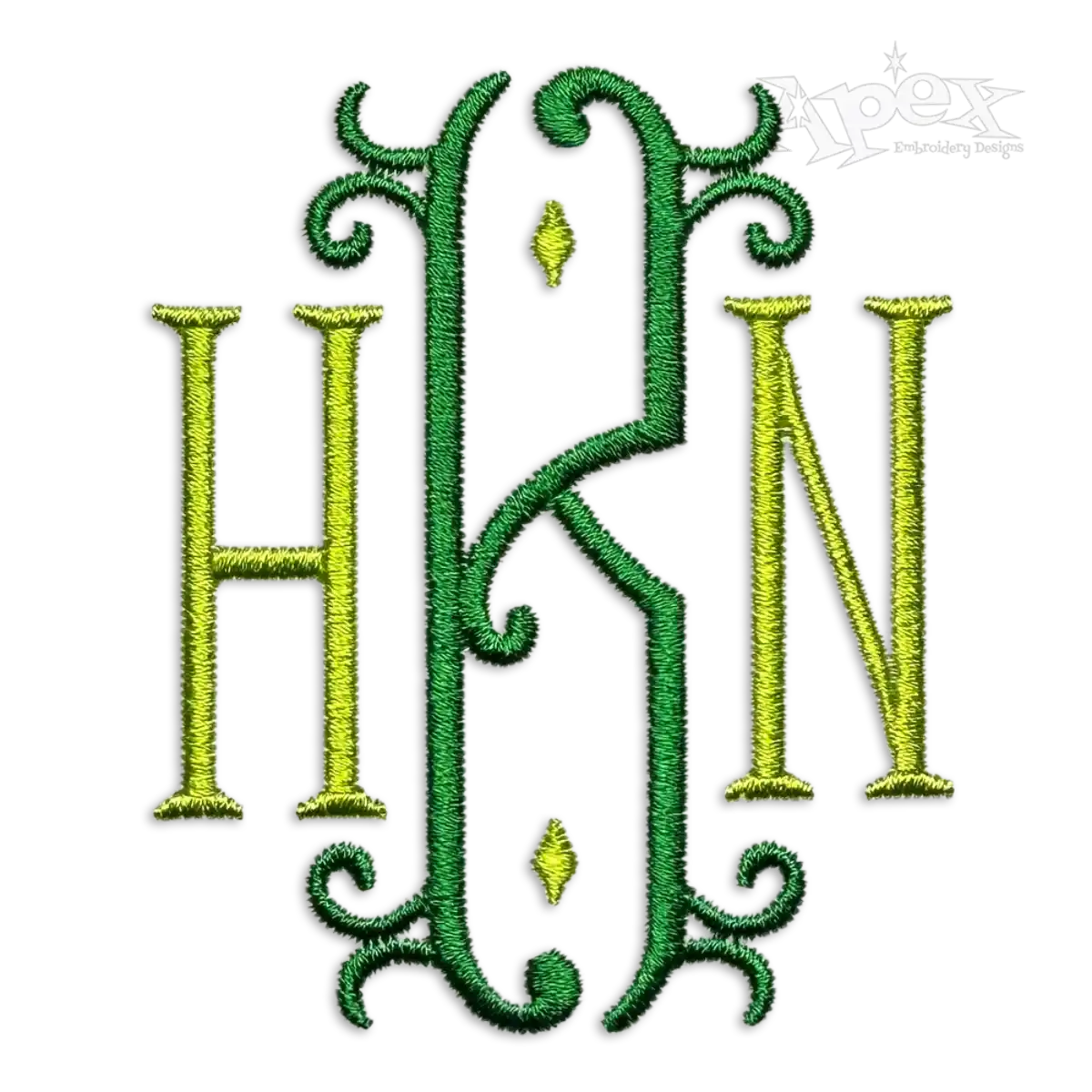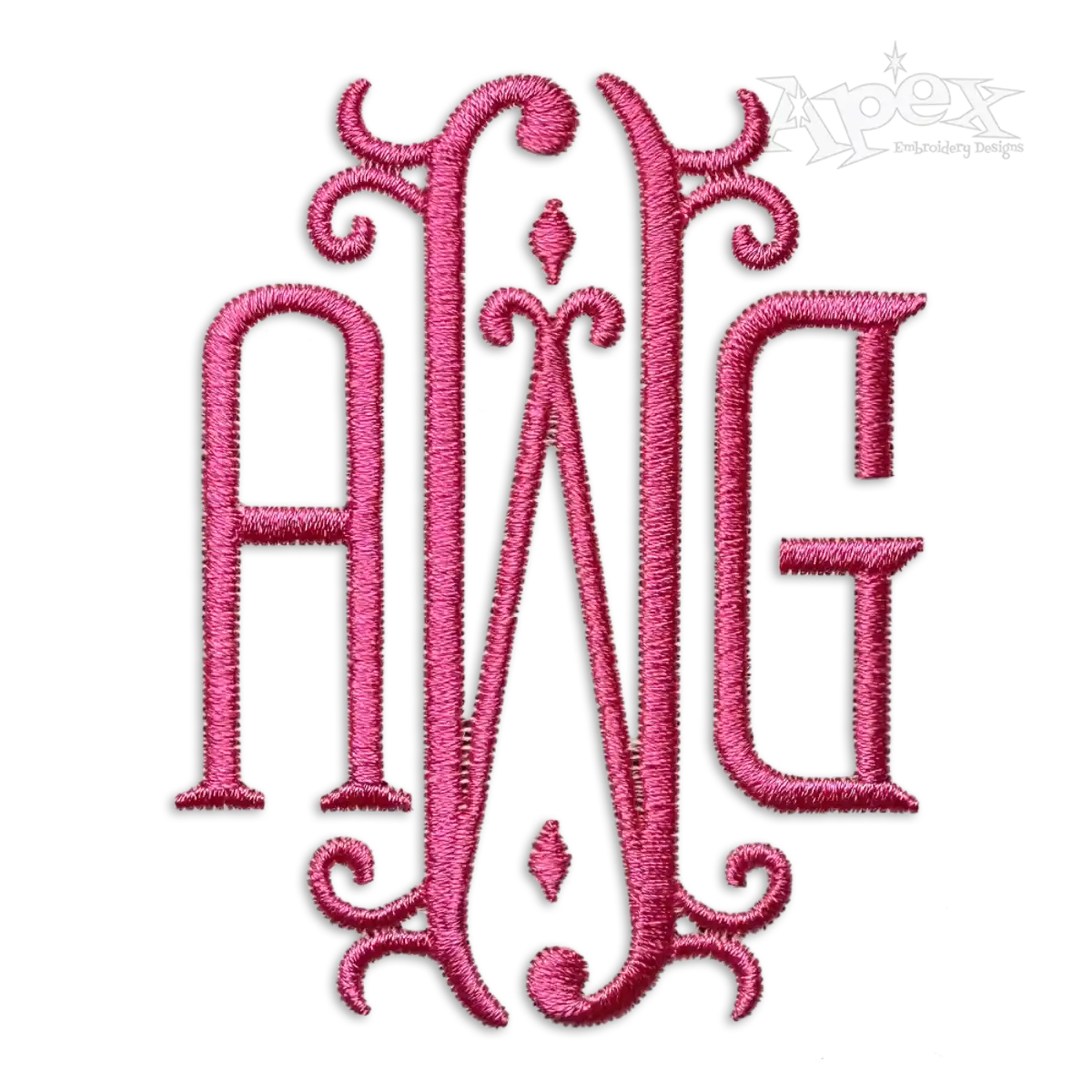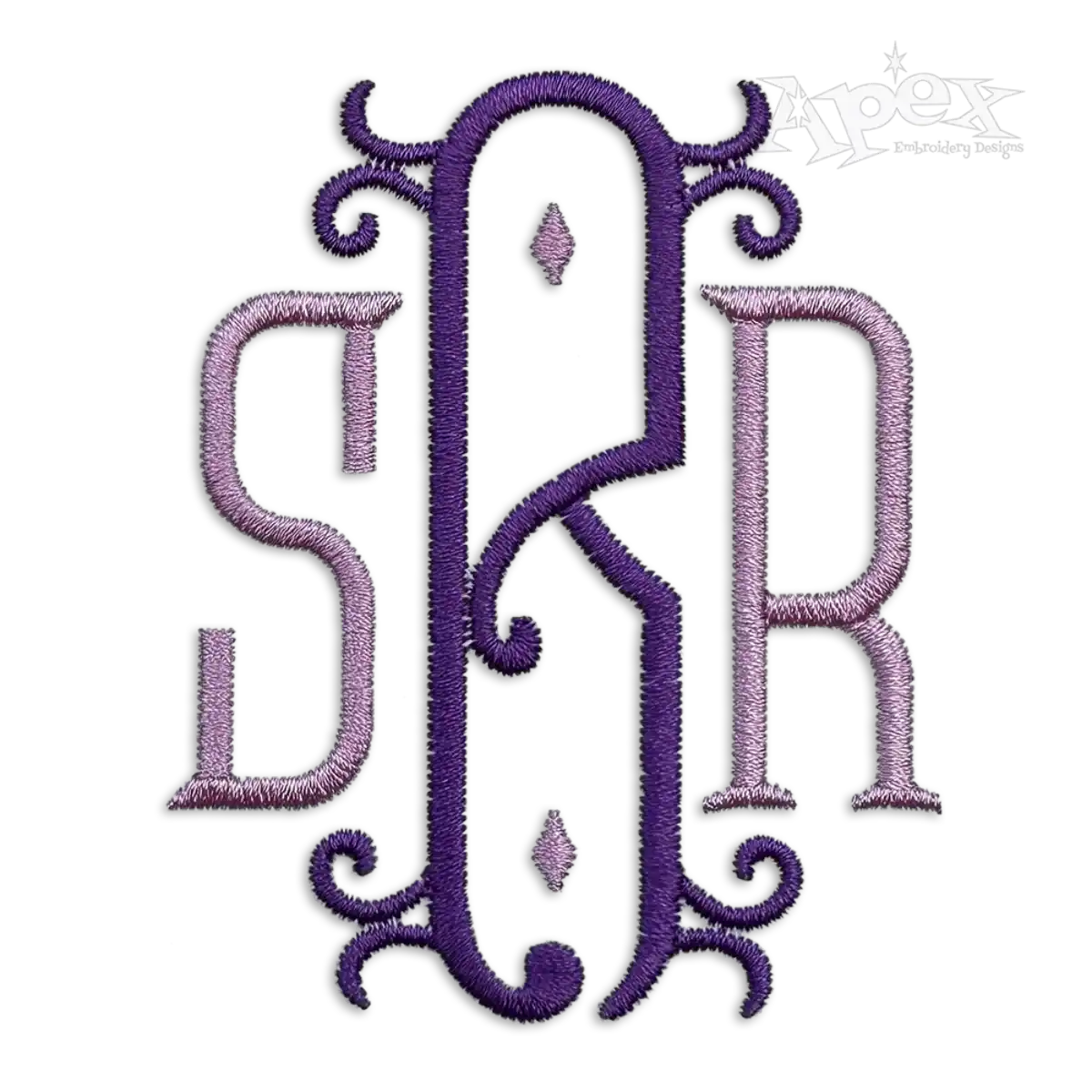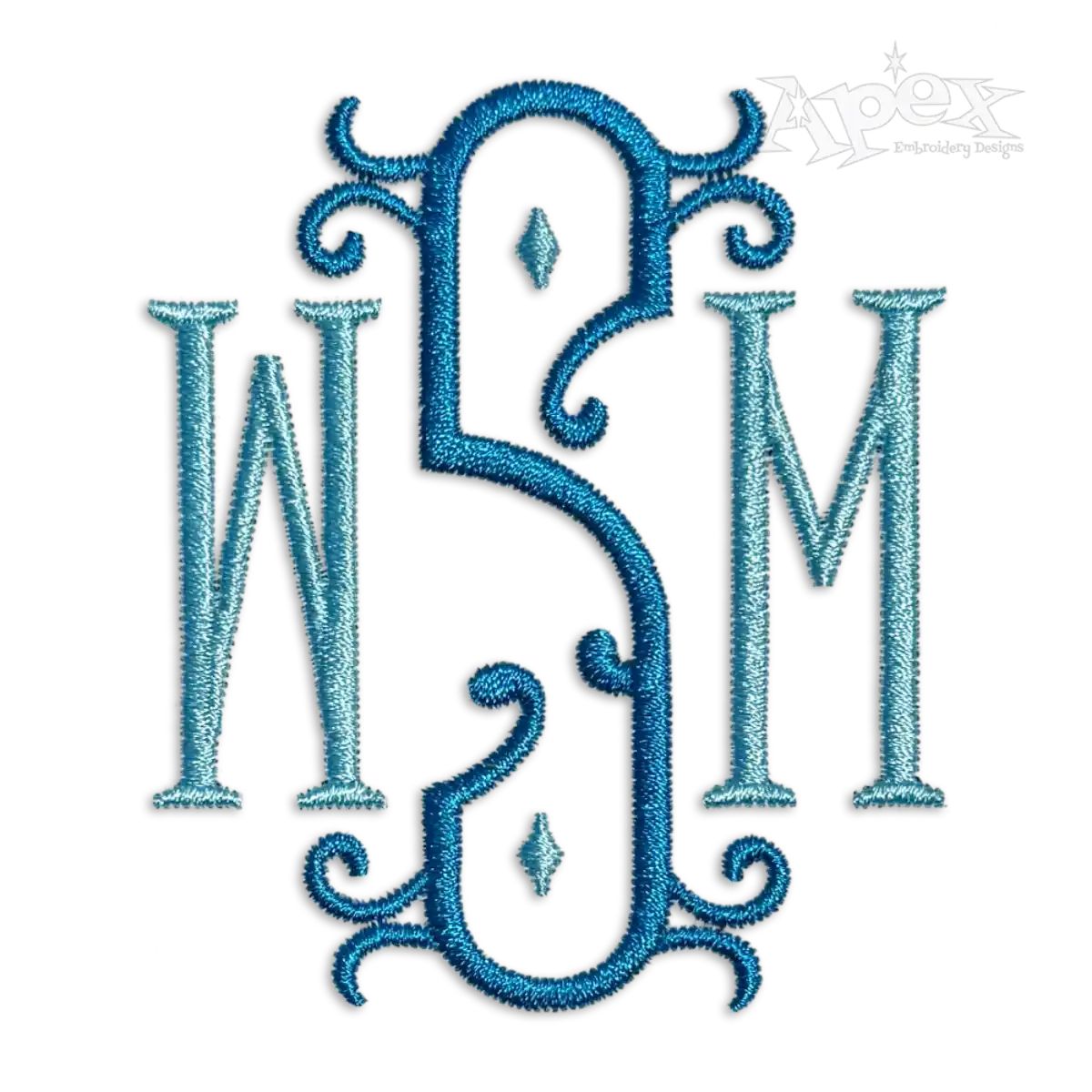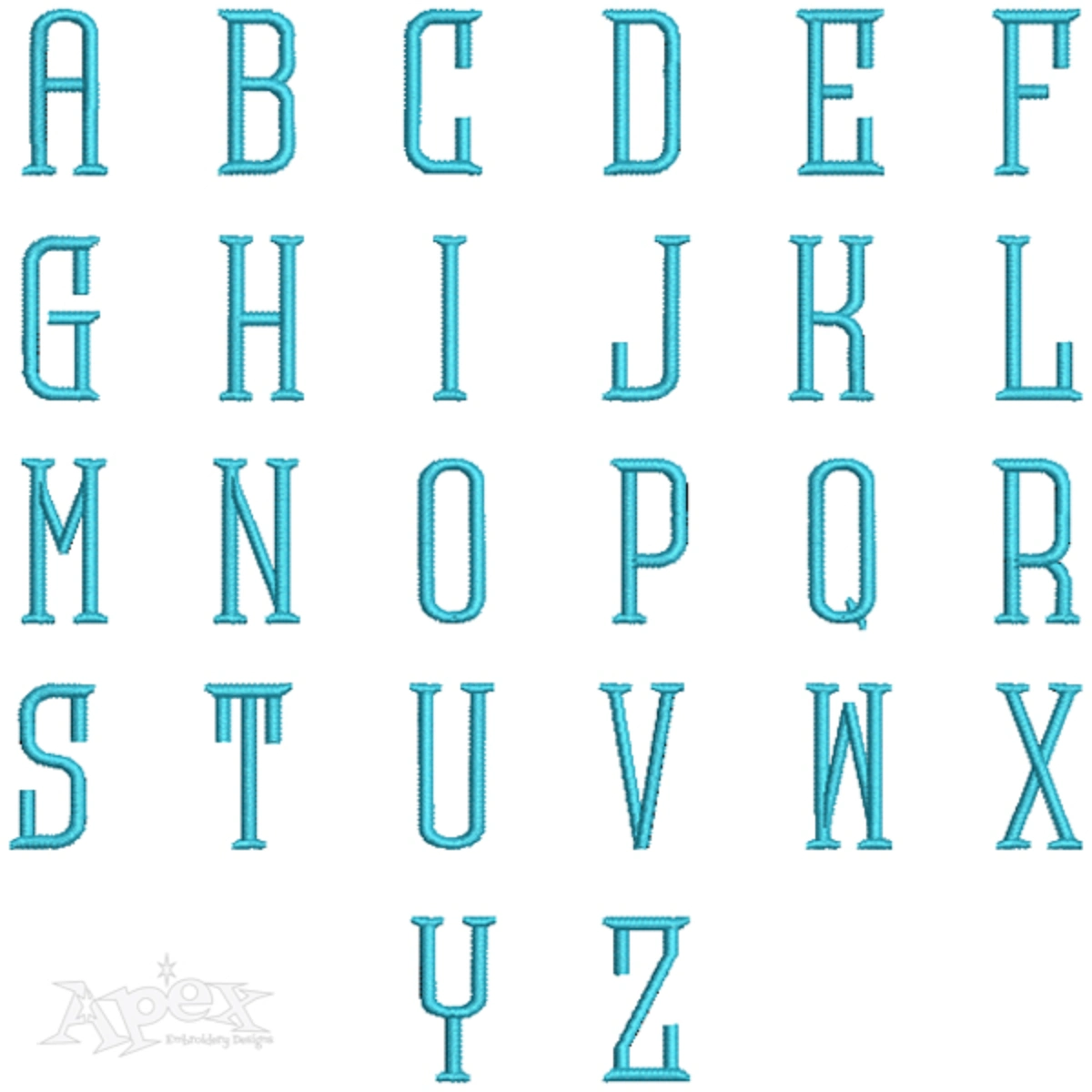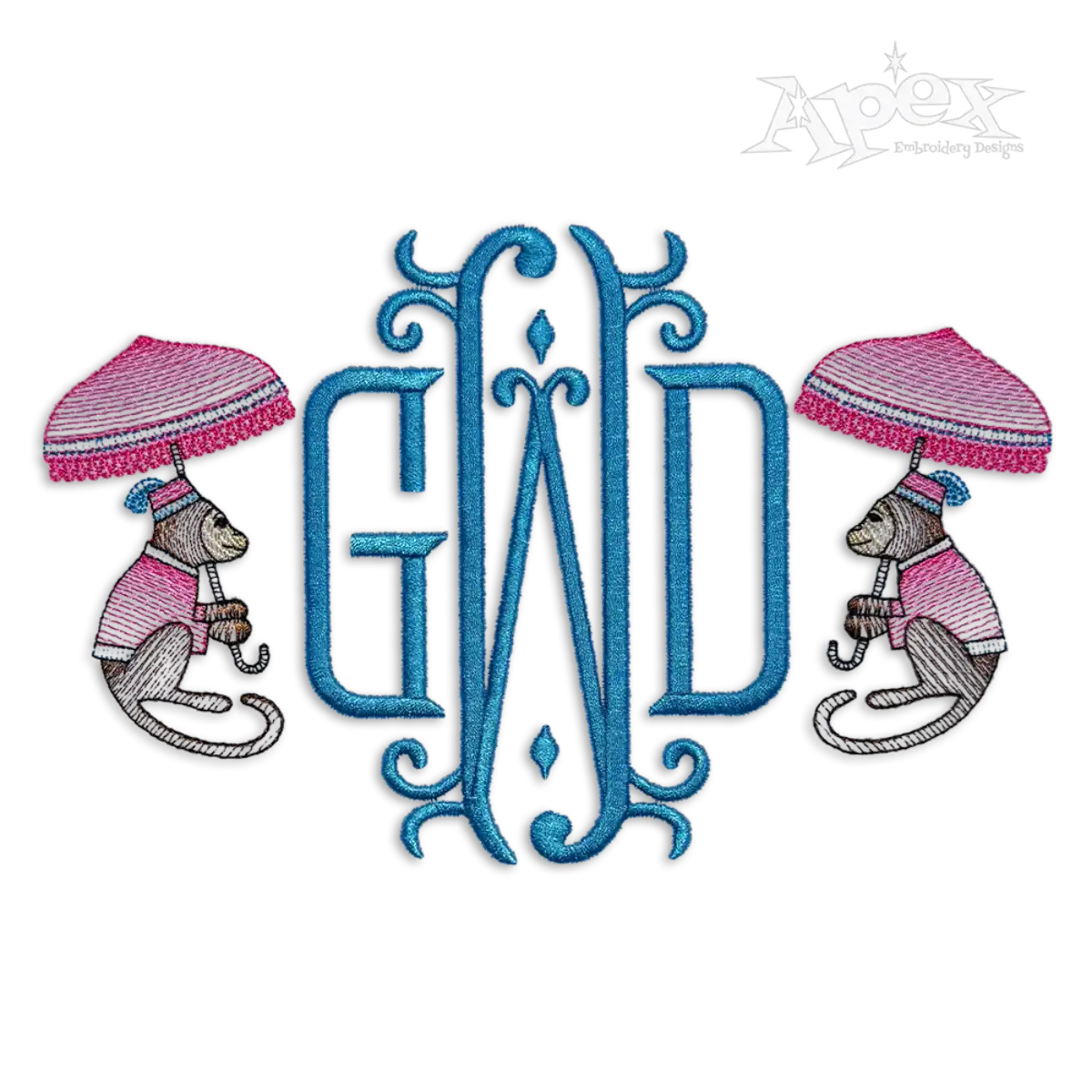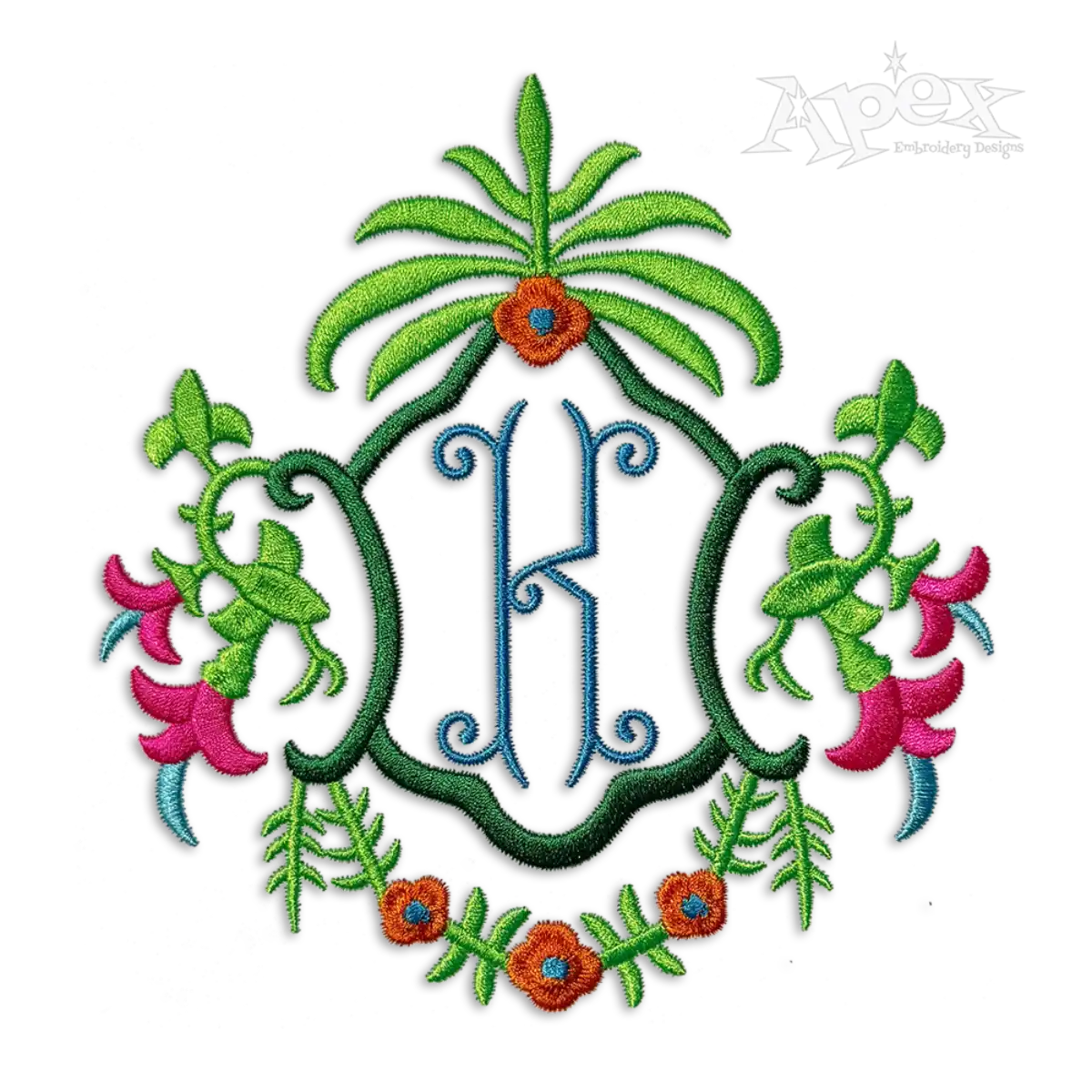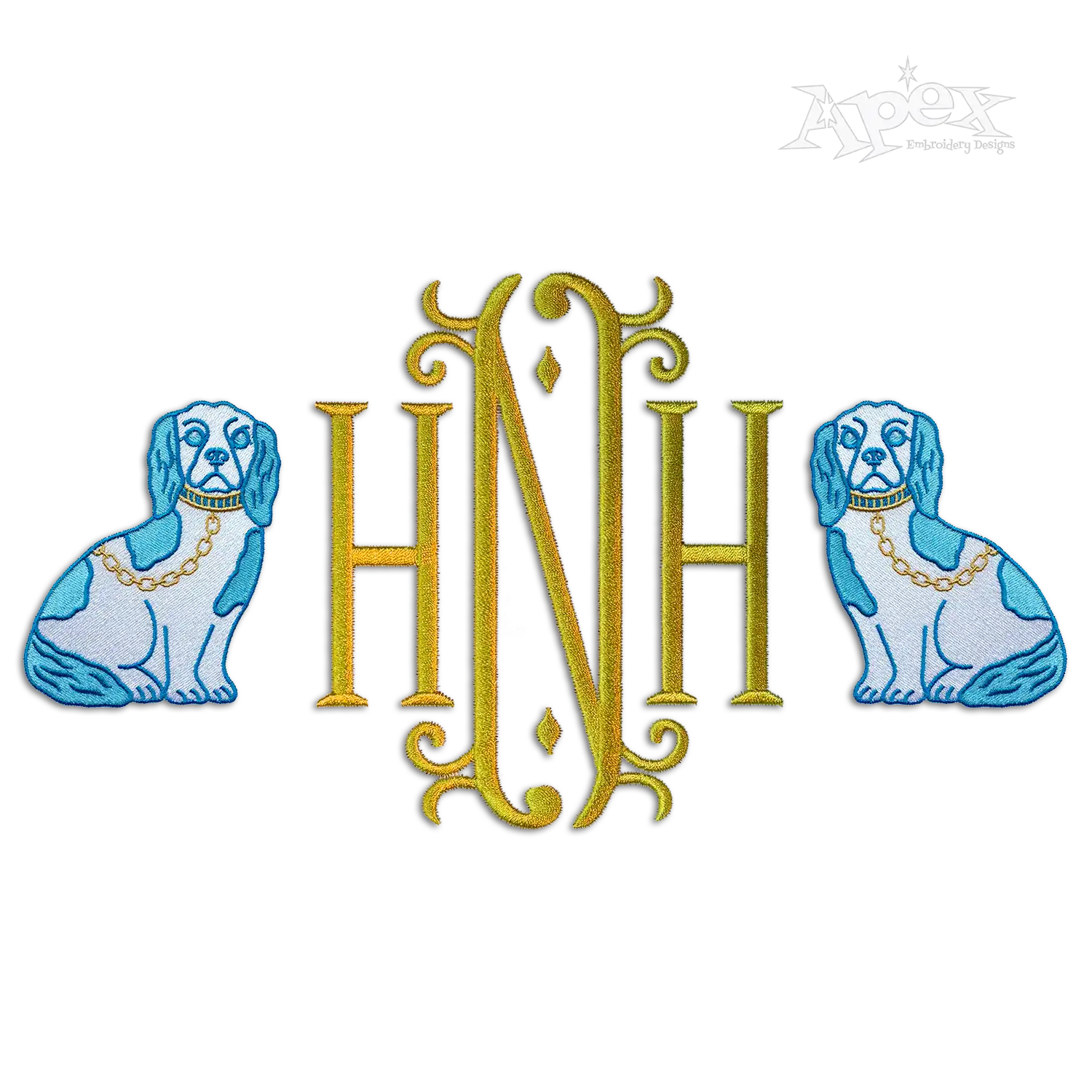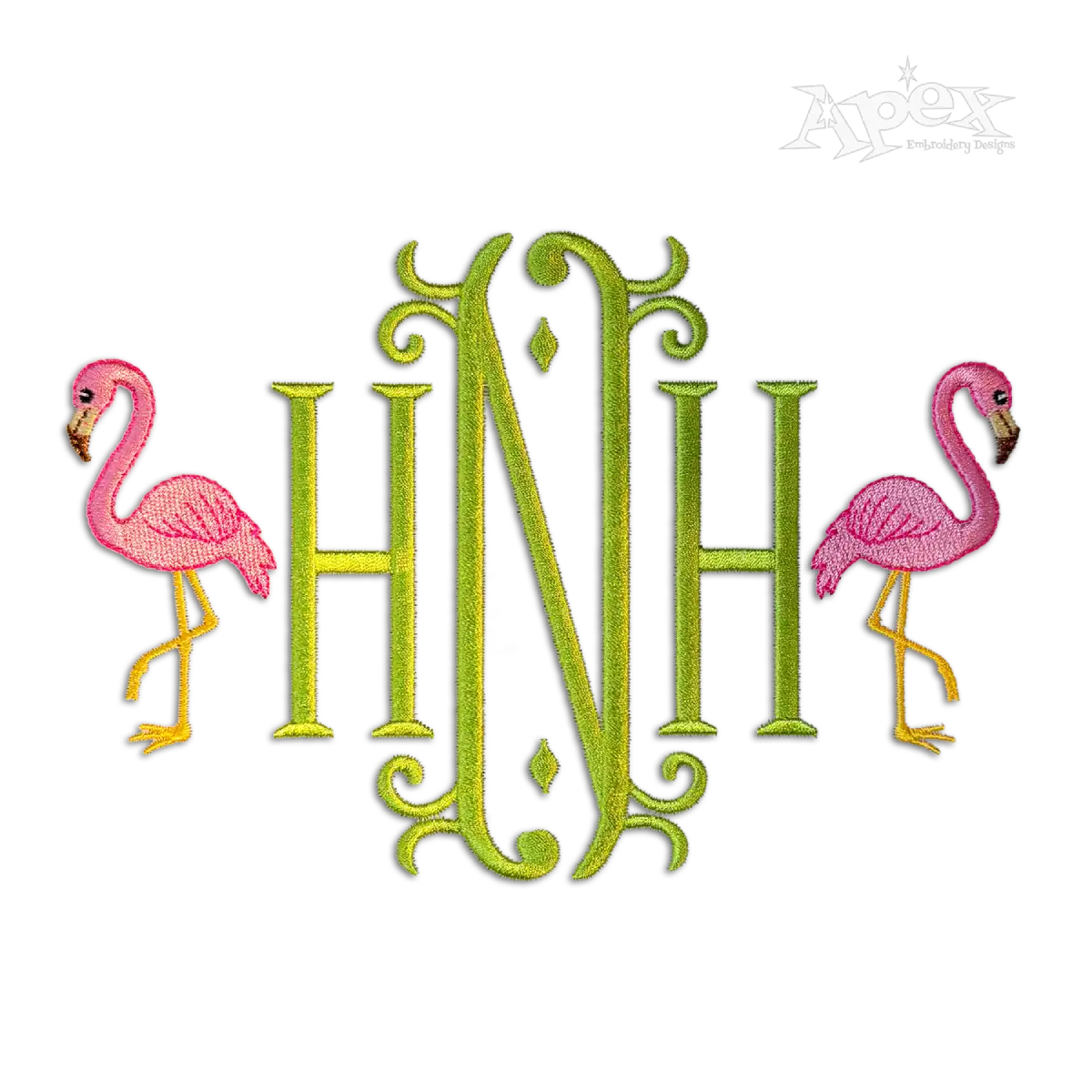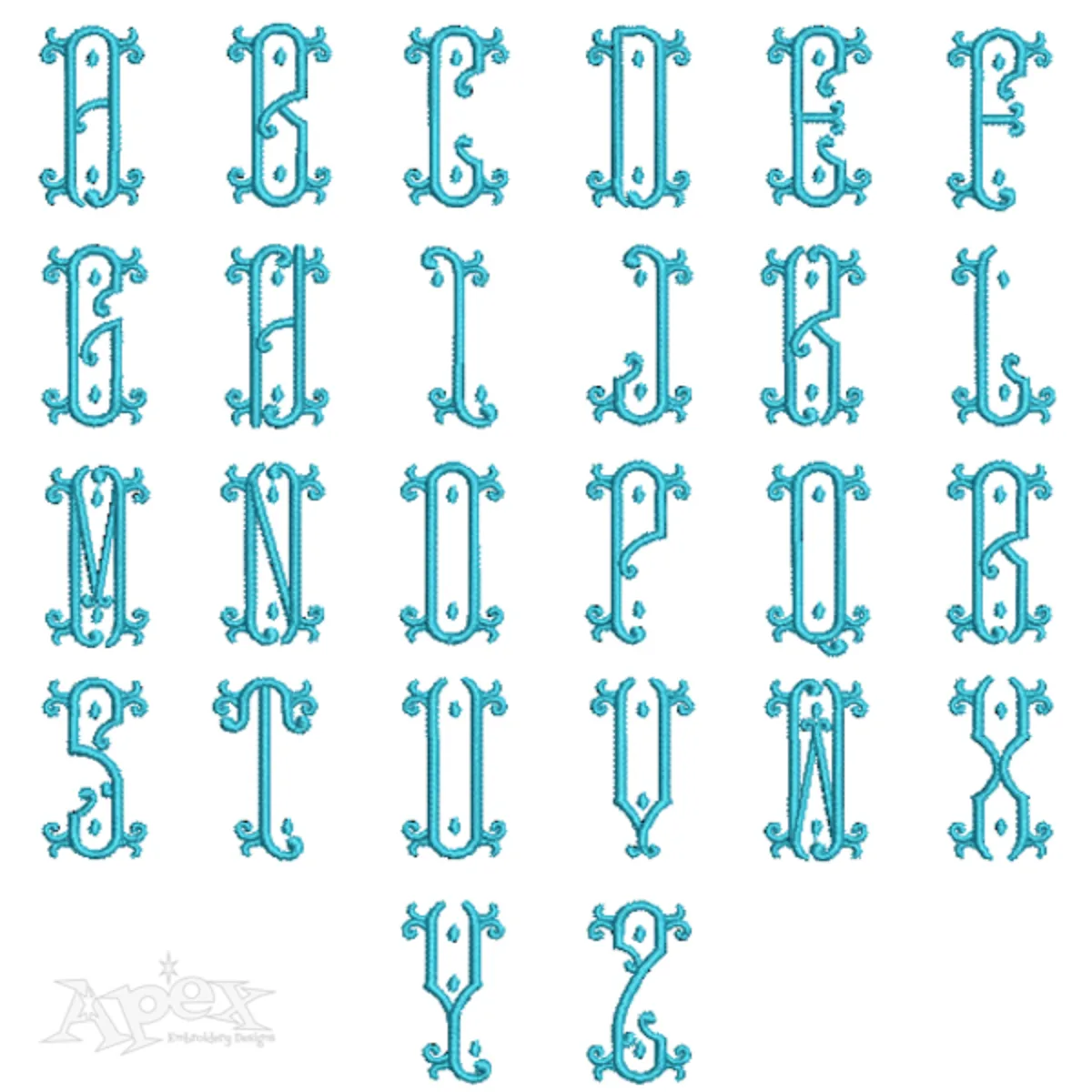
Delilah Monogram Embroidery Font
Conceived from the graceful poise of vintage calligraphy and refined by contemporary editorial design, the Delilah Monogram Machine Embroidery Font brings an undeniable sense of romance to the hoop. When hand-drafting and digitizing each letterform, our artisan focus was to balance dramatic, sweeping flourishes with clean architectural stems. The needle dances through these curves with effortless rhythm, translating thread into liquid silk across fine fabrics and imparting an air of quiet luxury to both heirloom keepsakes and modern bespoke creations.
Project Ideas for Delilah Monogram
- Luxury Table Linens: Stitch matching single-letter monograms onto crisp hemstitched linen cocktail napkins and runner ends for elegant entertaining.
- Heirloom Bedding: Elevate 400-thread-count cotton percale duvet covers and tailored pillow shams using the grand 5-inch sizing in tone-on-tone embroidery floss.
- Bridal Robes & Trousseau Keepsakes: Adorn shimmering silk or matte satin bridal loungewear with the bride's new initials for thoughtful, personalized wedding gifts.
- Bespoke Resort Wear & Canvas Totes: Add an upscale country-club finish to heavy cotton canvas pool bags, terry wraps, and weekend duffels.
- Personalized Gifting: Personalize plush velvet throw blankets, guest towels, and vanity pouches for unforgettable housewarming and anniversary treasures.
The distinctive, flowing silhouette of Delilah lends itself beautifully to several classic embroidery placements:
- Corner Diagonal: For square dinner napkins and cocktail squares, rotate the letterform 45 degrees and align it 1.5 to 2 inches inward from the lower right hemmed corner.
- Center Chest & Robe Placement: For loungewear and bridal robes, position the monogram centered across the shoulder blades on the back or placed 7 to 9 inches down from the shoulder seam on the left chest.
- Flange and Sham Center: On standard or Euro pillow shams, center the 4-inch or 5-inch monogram directly between the inner seam borders to create a balanced focal point.
- Bag and Tote Panels: Center the design between exterior canvas handles, approximately one-third of the distance down from the top opening for optimal visual weight.
Delilah Monogram Craft & Letterform Details
The true artistry of Delilah resides in its meticulous satin stitch architecture. Rather than relying on rigid, automated column fills, each curve and serif is mapped with dynamic stitch angles that mimic the natural flow of an inked calligraphy pen. As light grazes the embroidery, the thread catches the sheen in shifting gradients, giving every letter stunning dimension and movement.
We engineered the underlay foundation with precision travel stitches and edge-walk paths, ensuring that broader swells retain rich, lofted volume while delicate hairline terminals stay crisp and sharply defined. The result is a stitch-out that glides through production smoothly, preventing puckering and yielding buttery, satin-smooth monograms that endure through years of cherished use.